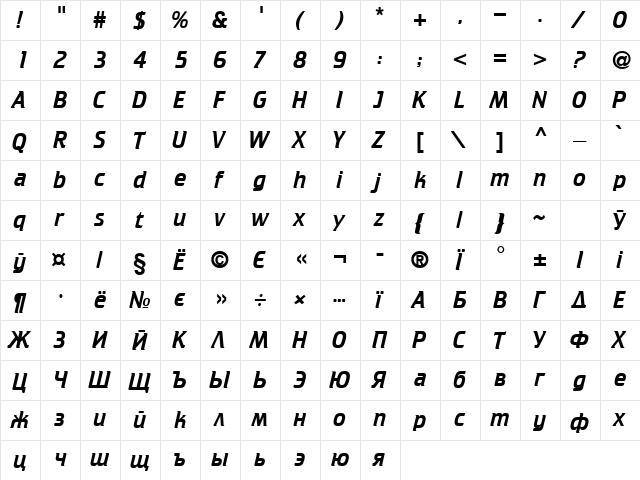
font129 Normal
Design Context for font129 Typeface
font129 offers clean, dependable letterforms without strong stylistic allegiance, making it a practical choice for designers who need flexibility.